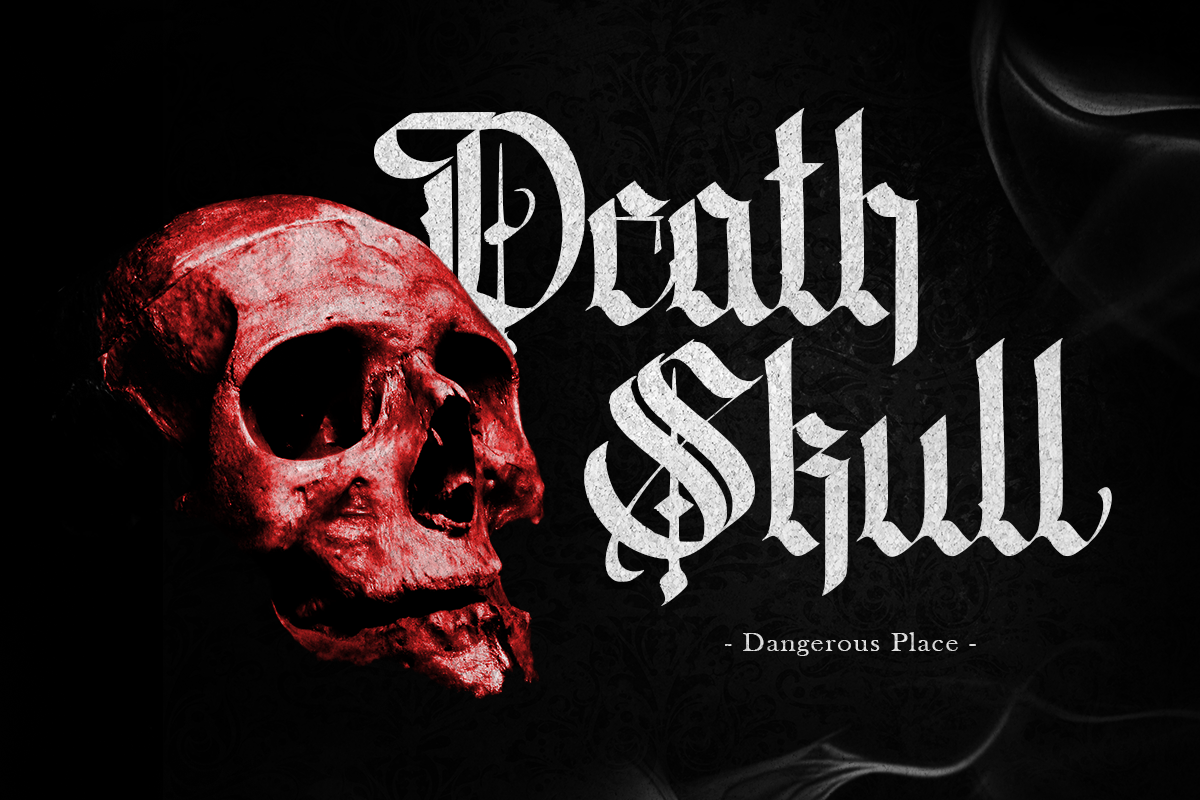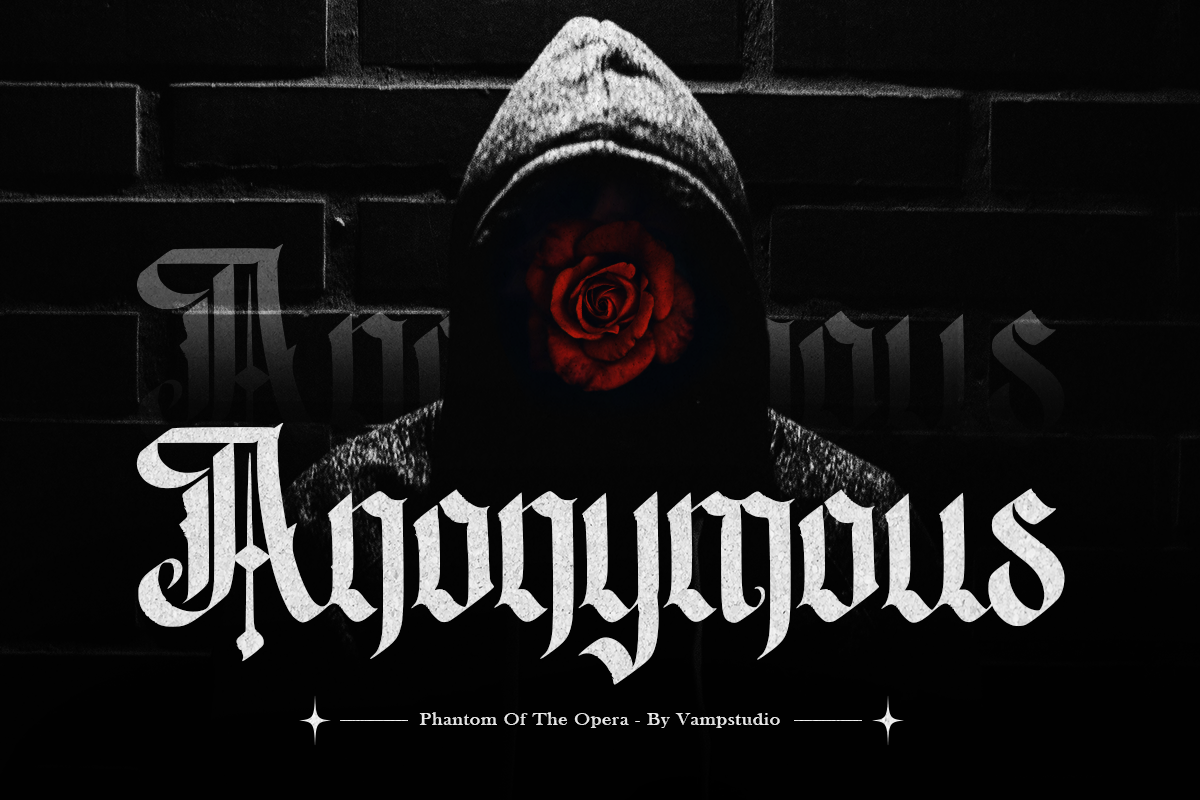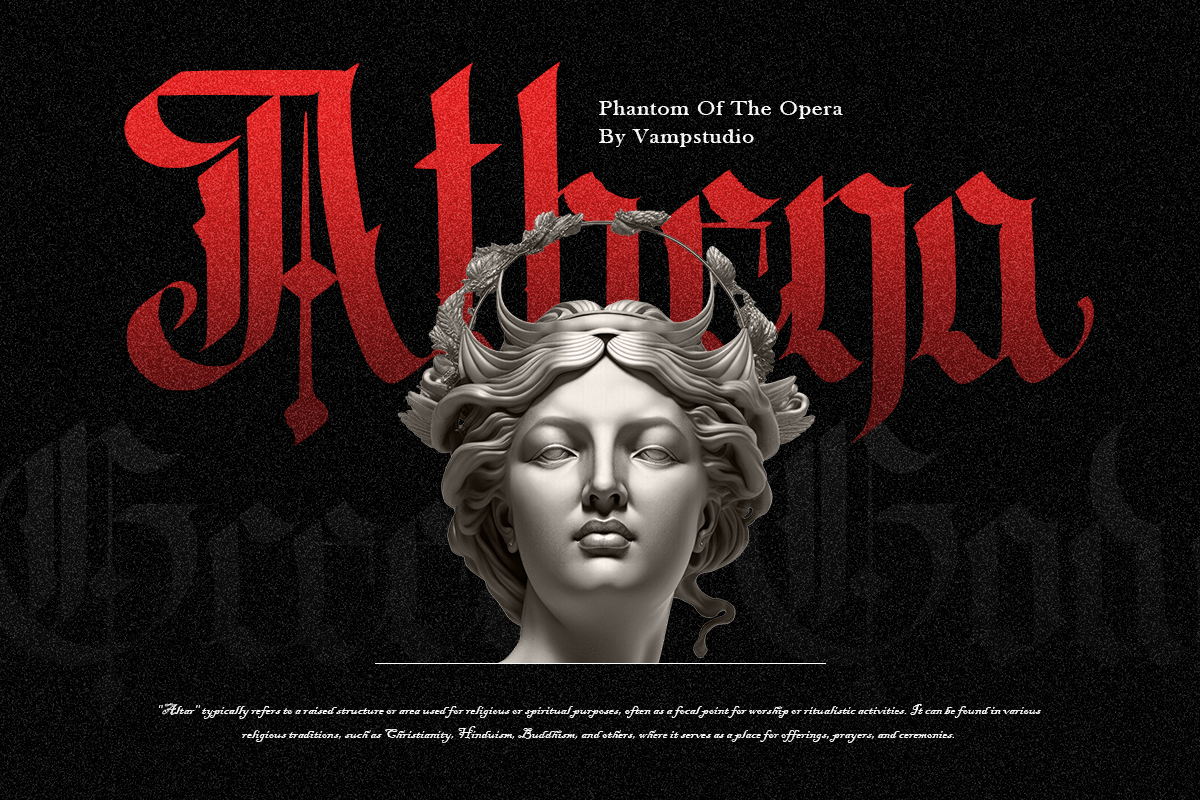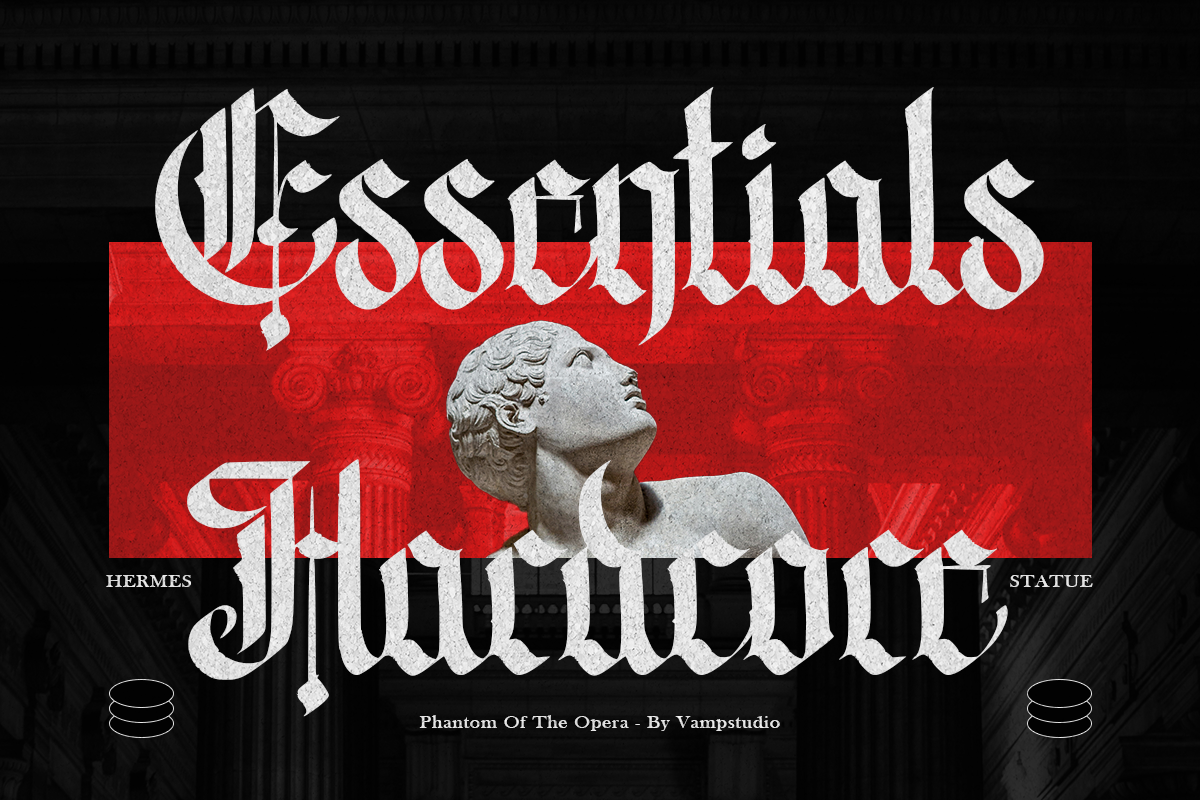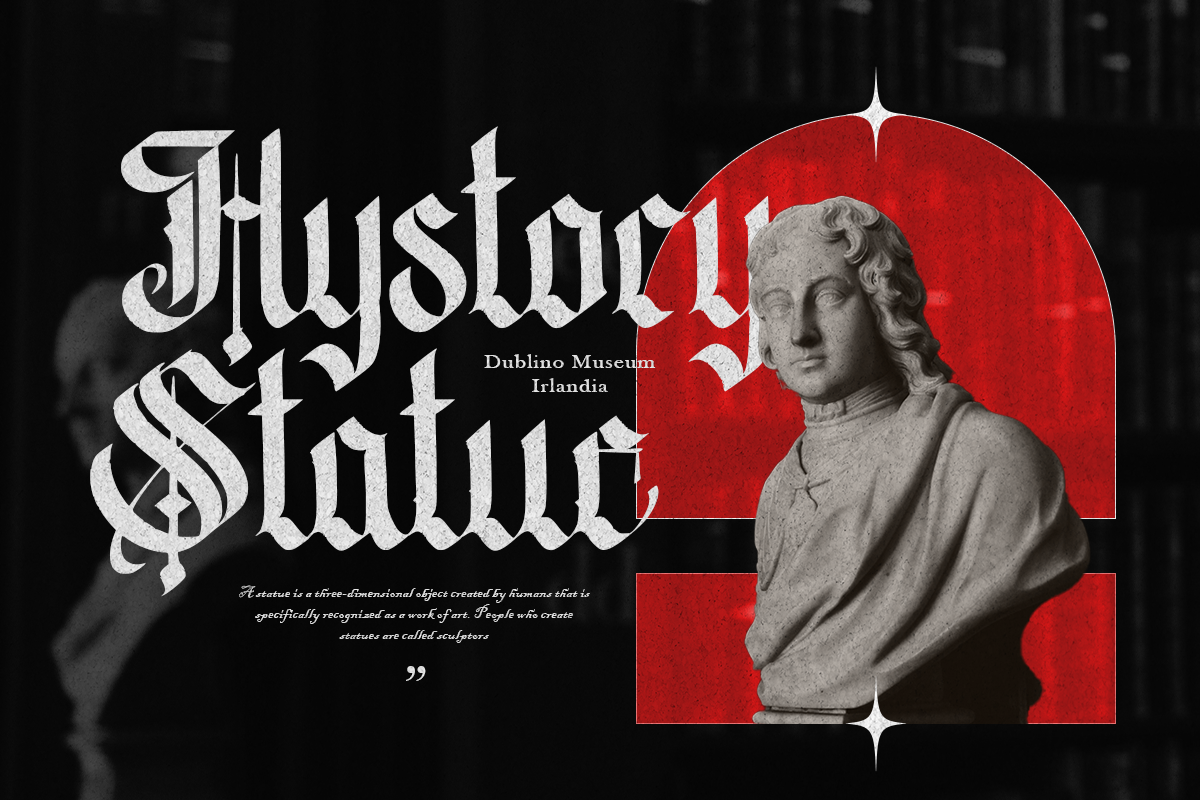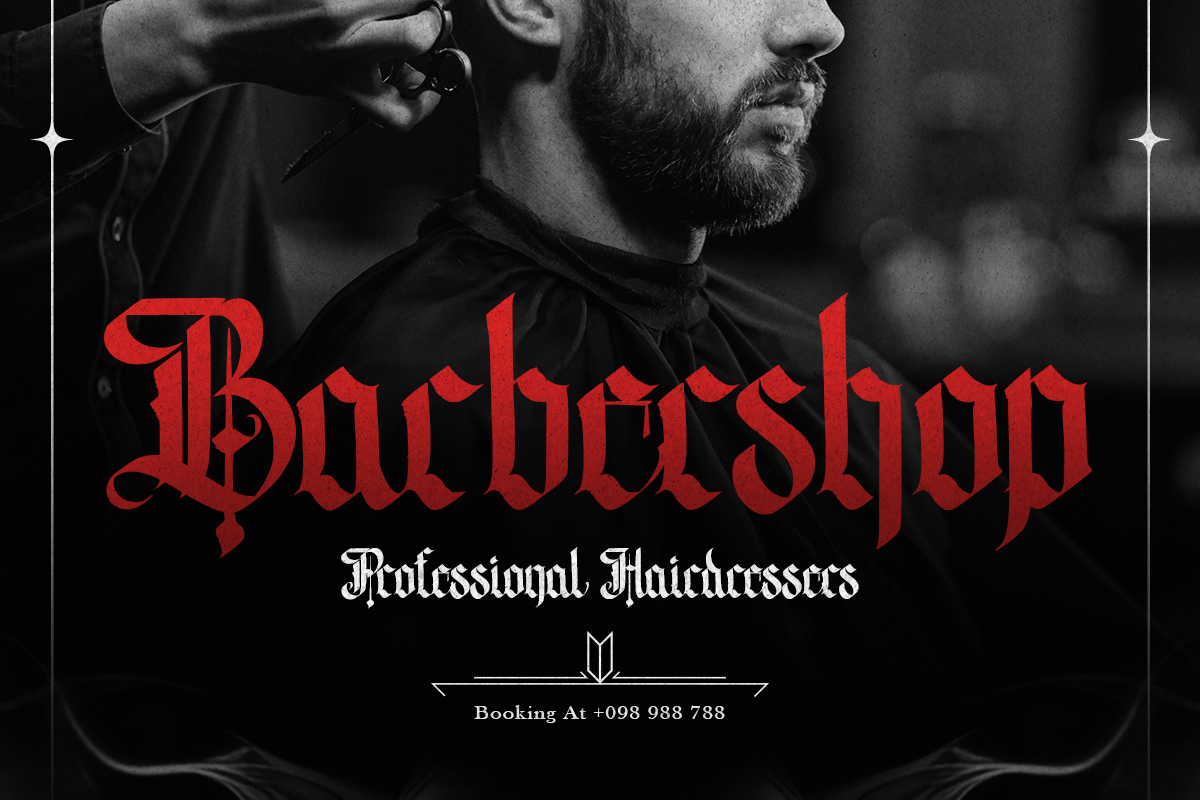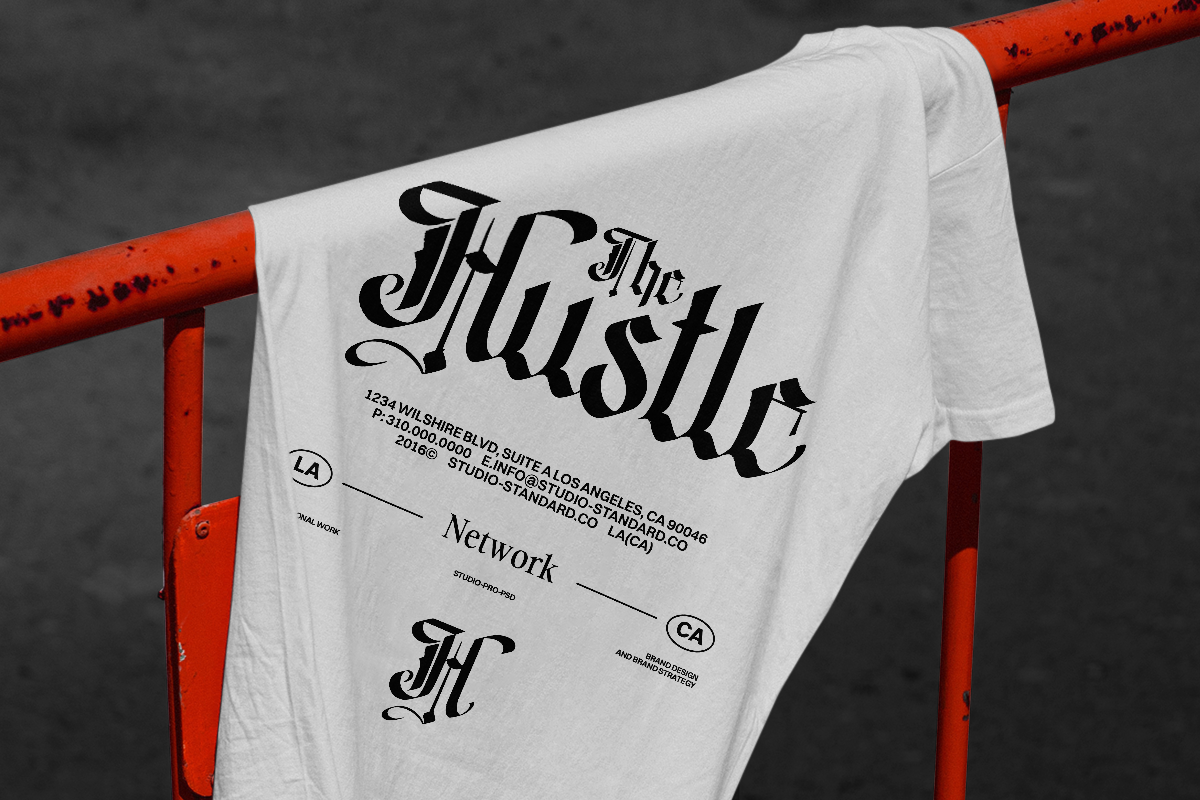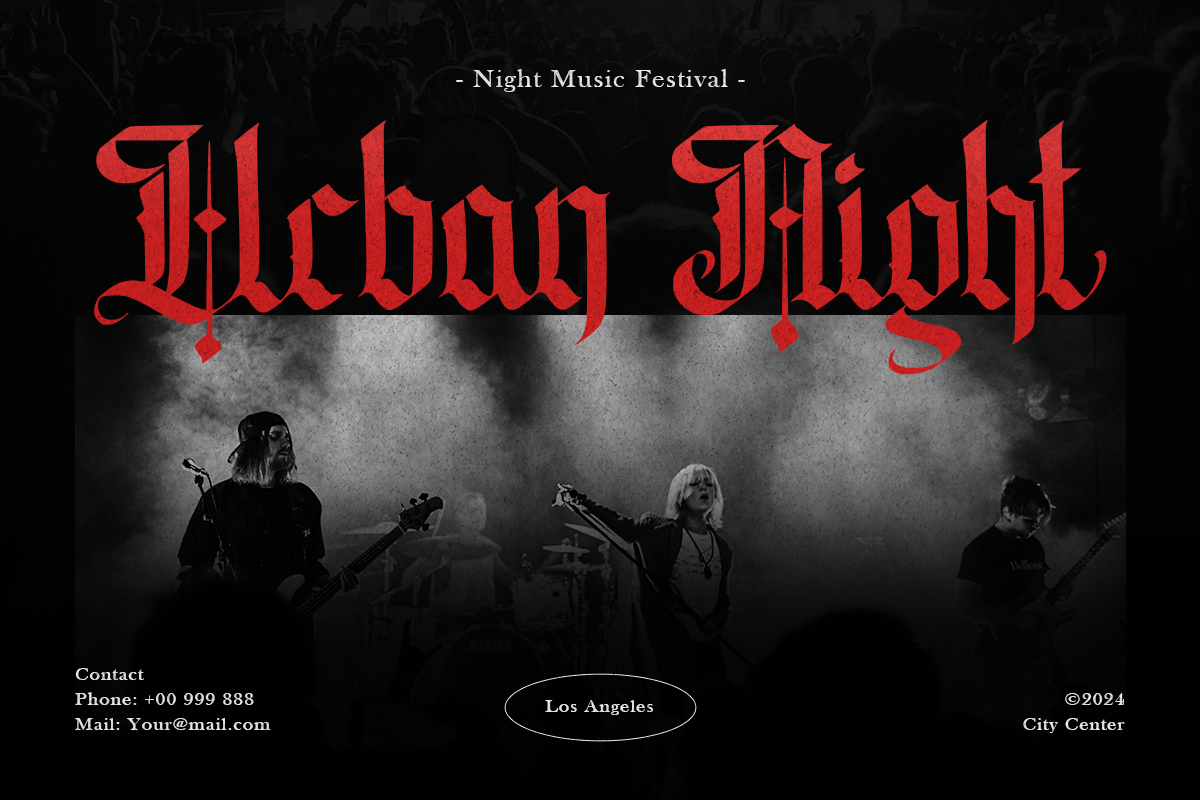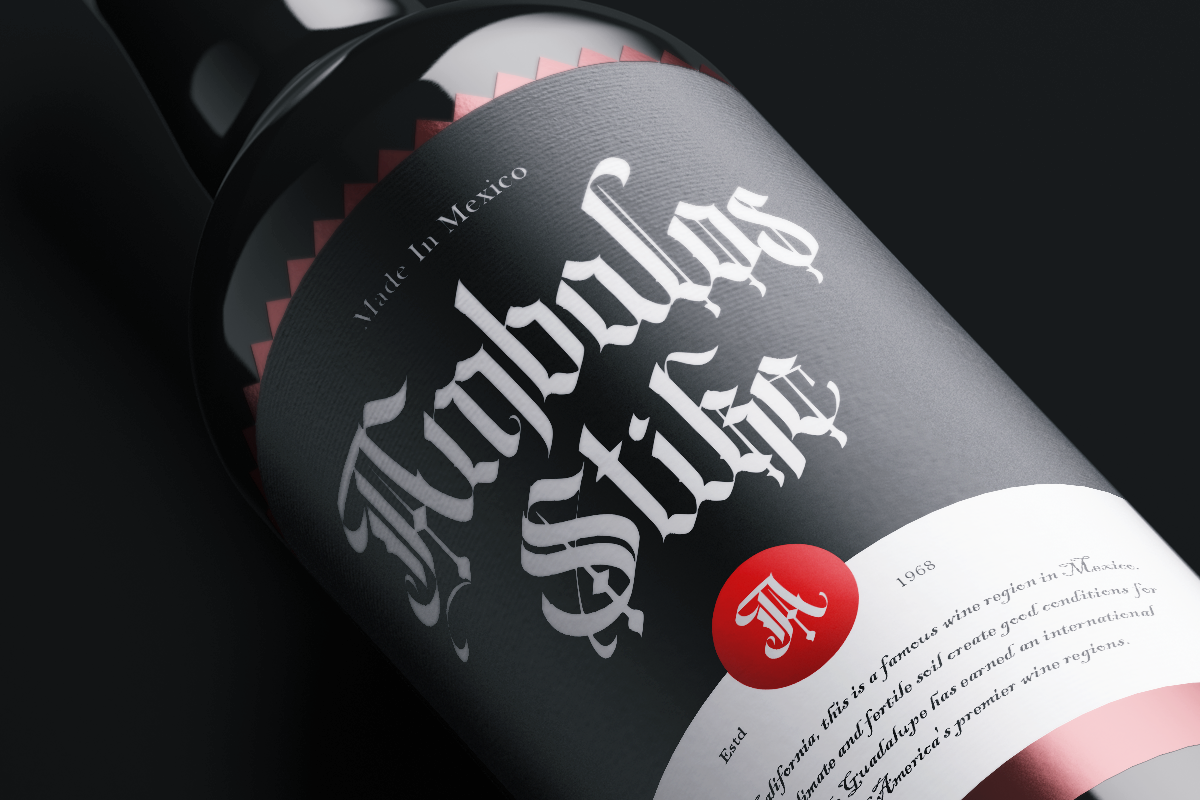
Phantom Of Opera - Blackletter
Phantom Of Opera is a modern elegant Blackletter Font. This font looks very simple, clean, and elegant. Specially designed by skilled hands makes this font is the perfect fit for all your big projects.
Phantom Of Opera is perfect for branding projects, logo, wedding designs, social media posts, advertisements, product packaging, product designs, label, photography, watermark, invitation, stationery and any projects that need handwriting taste.